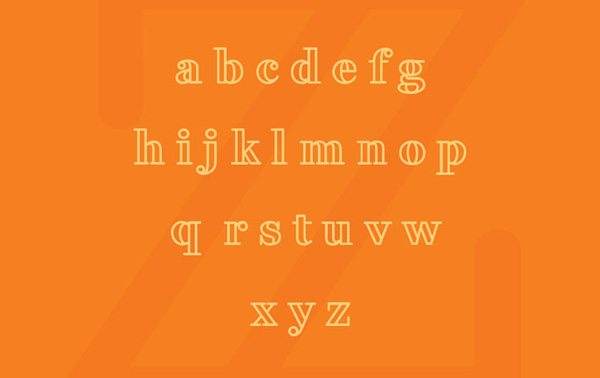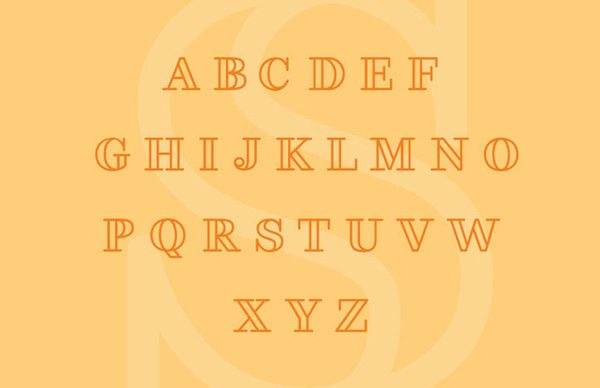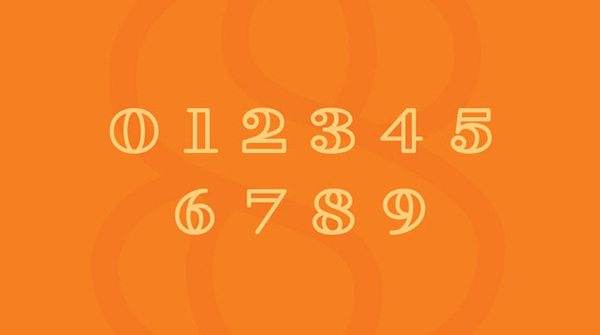
Fonts Free Font Of The Day #153 – Fakedes Font by Yayang Apryana April 8, 2015 Fakedes Font The Font is a new free rounded & outline serif font. Designed by Cyril Mikhailov. Download